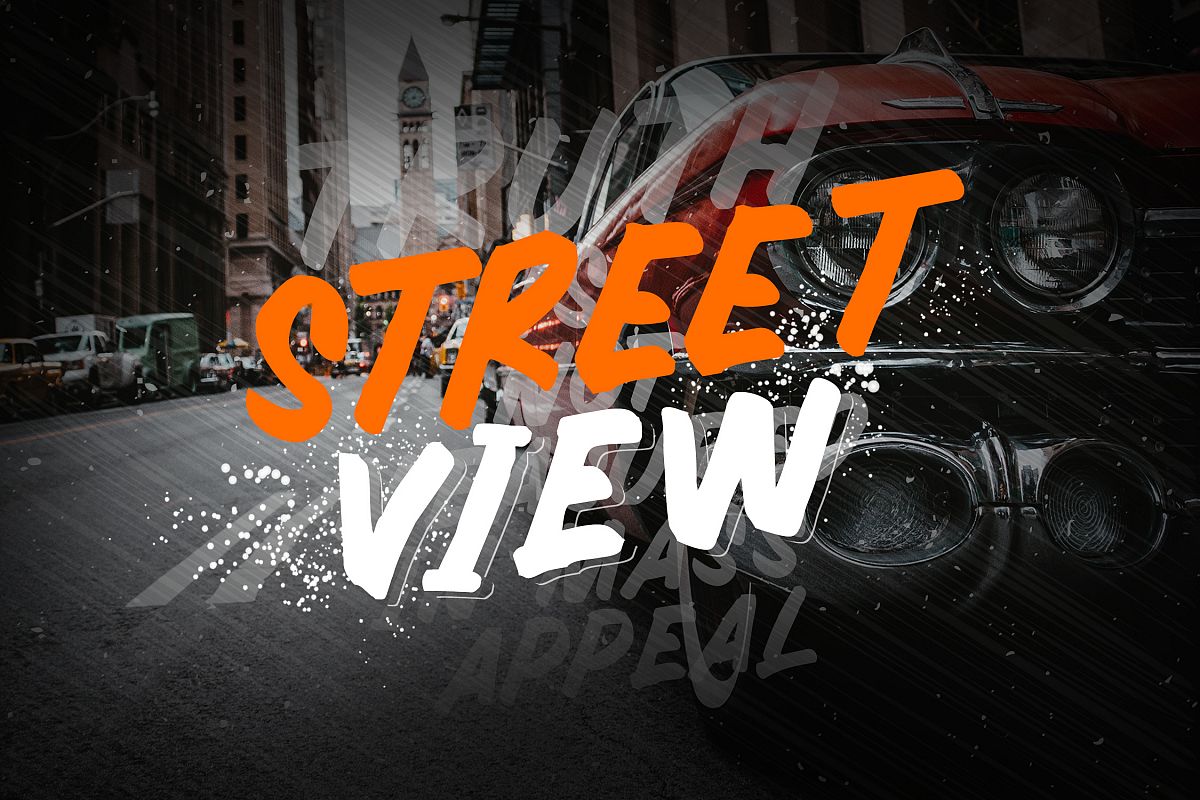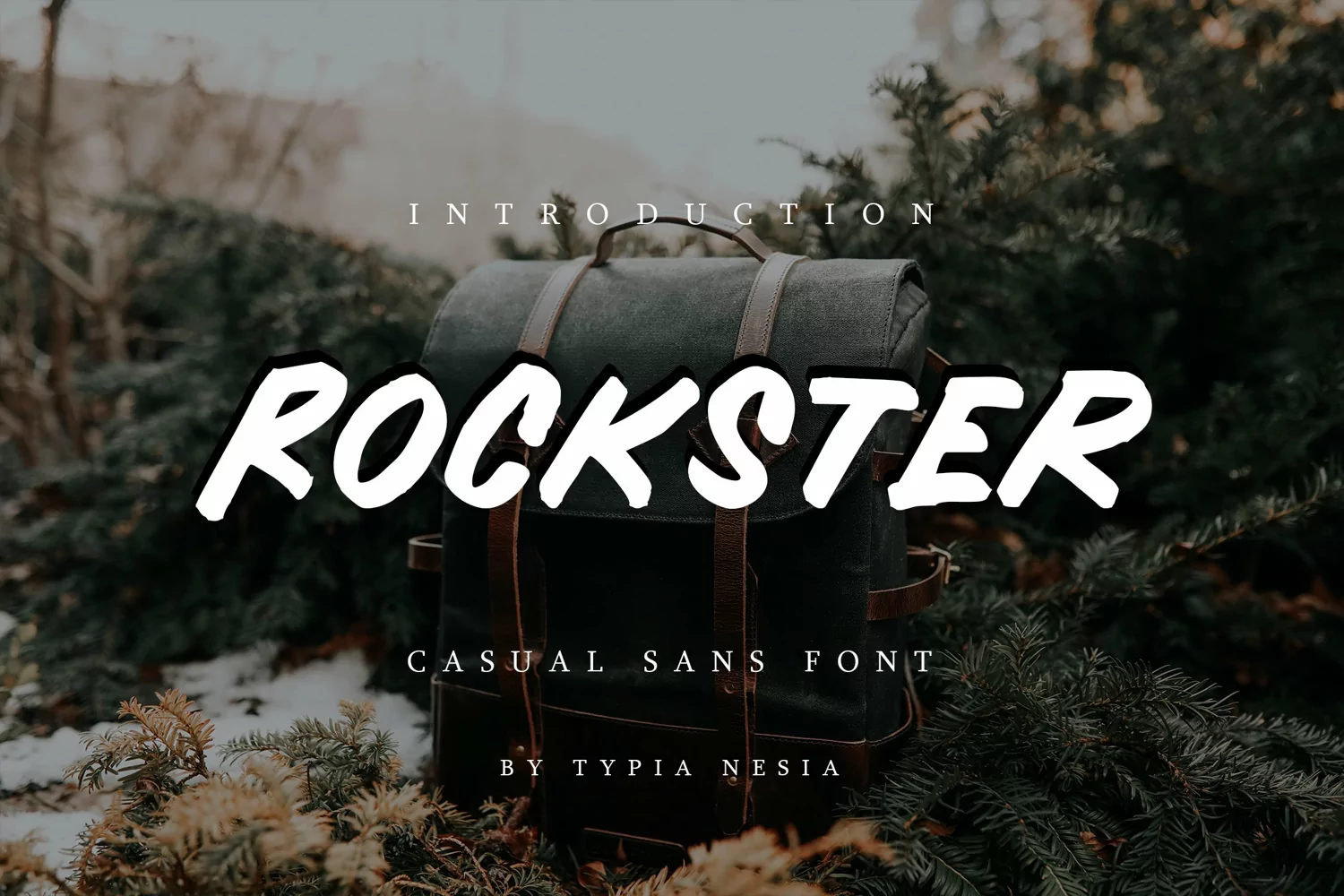
Rockster is Allcaps Casual Sans - Marker Rough Sans
It can be used in different purposes: lettering and logotype, labels, t-shirts, product packaging, invitations, advertising, and any typography design projects.
Typia Nesia Studio
Rockster